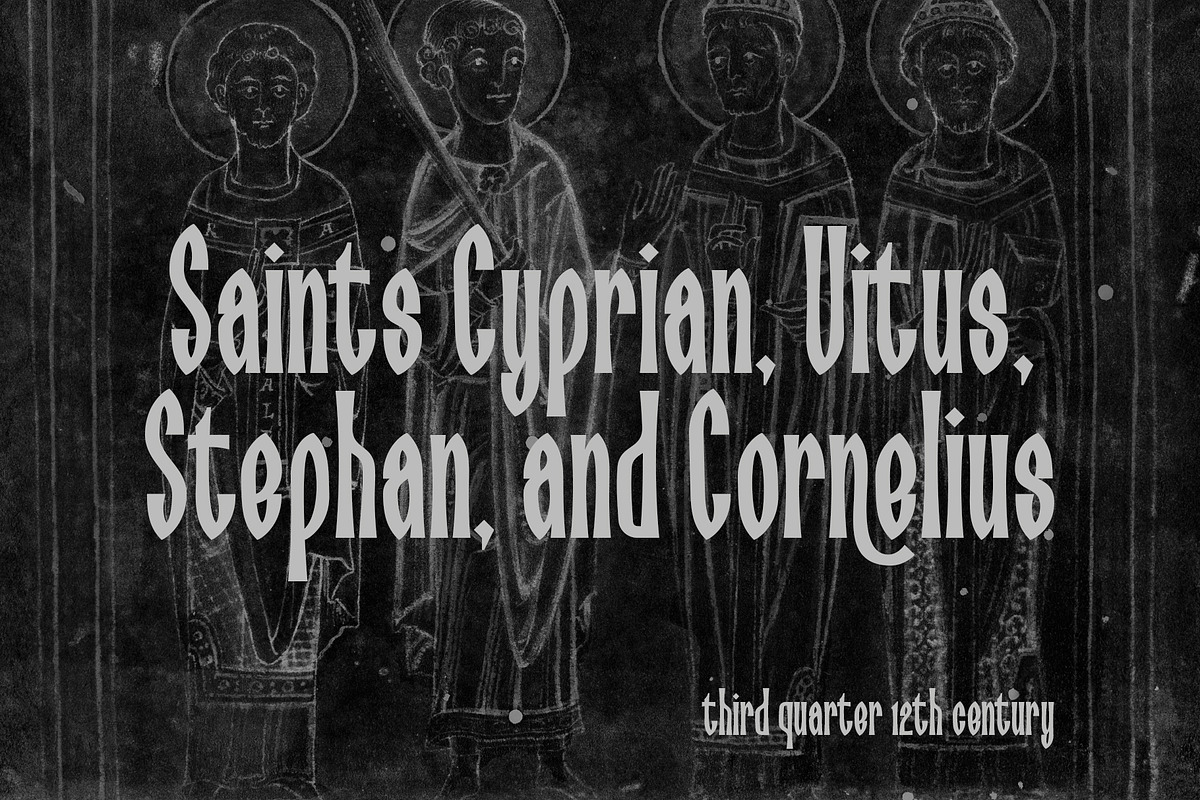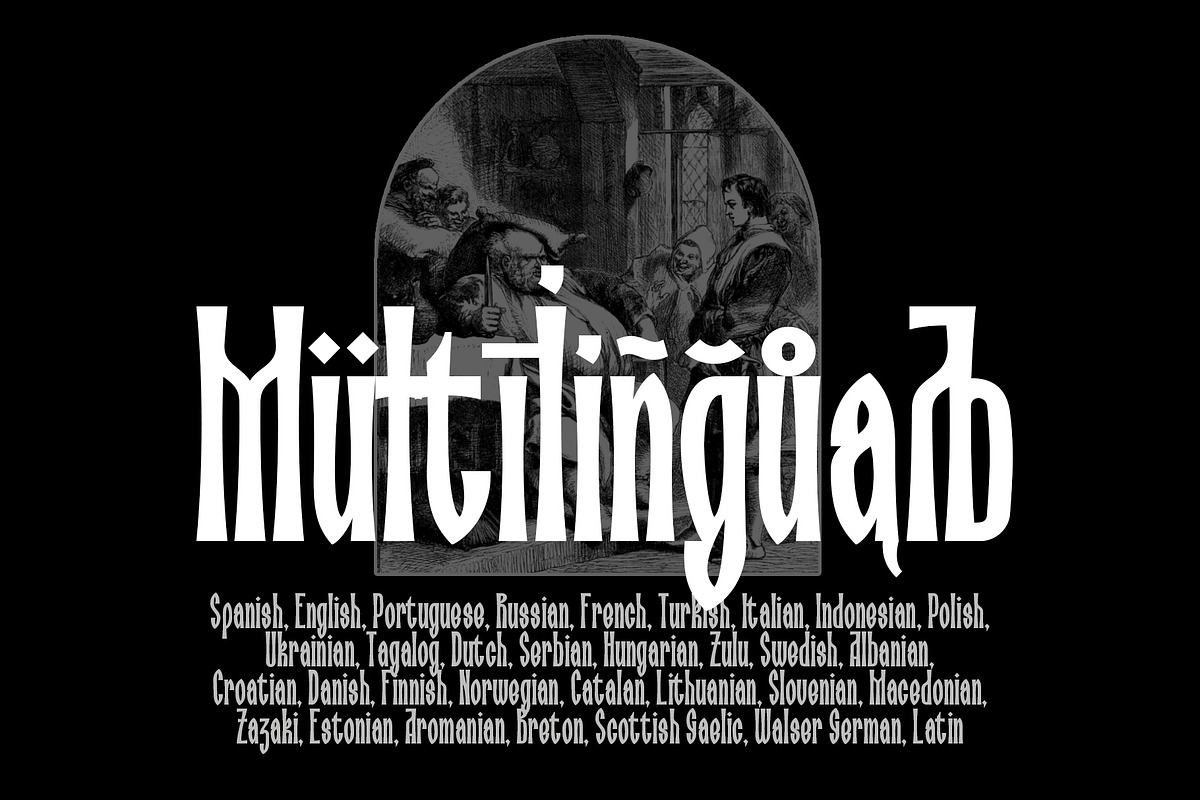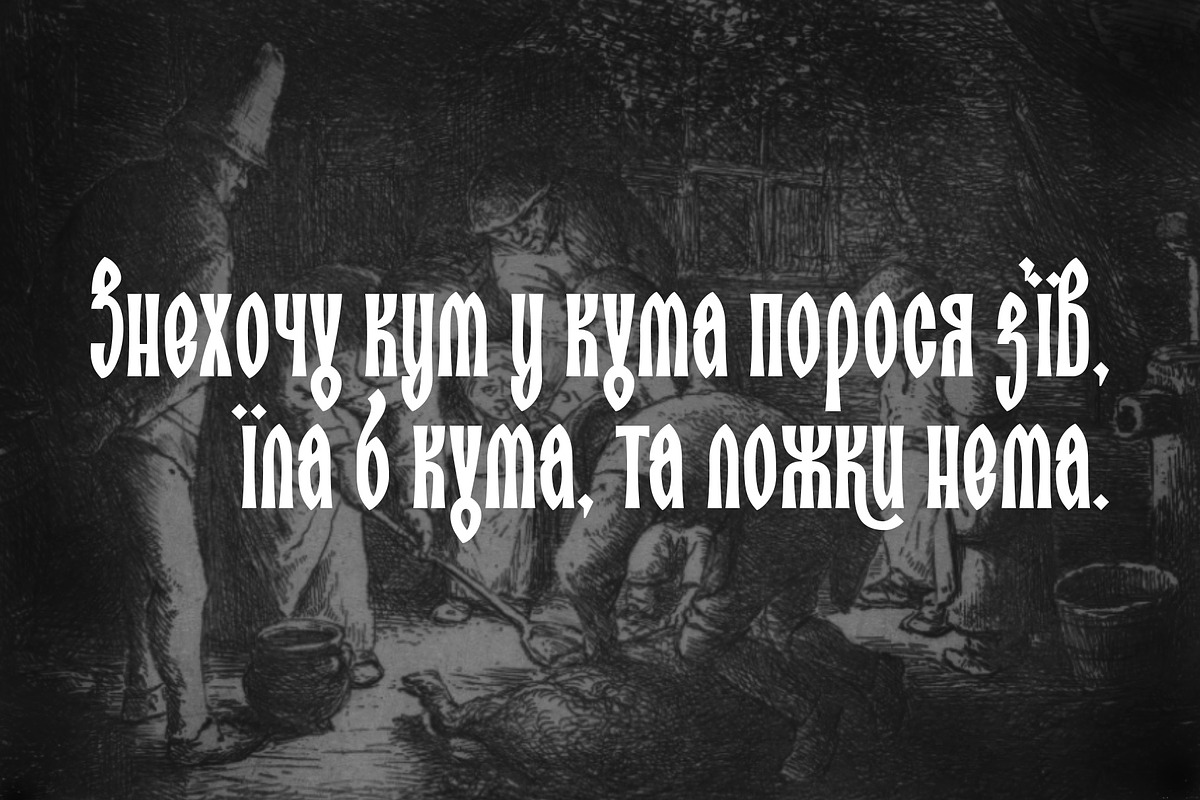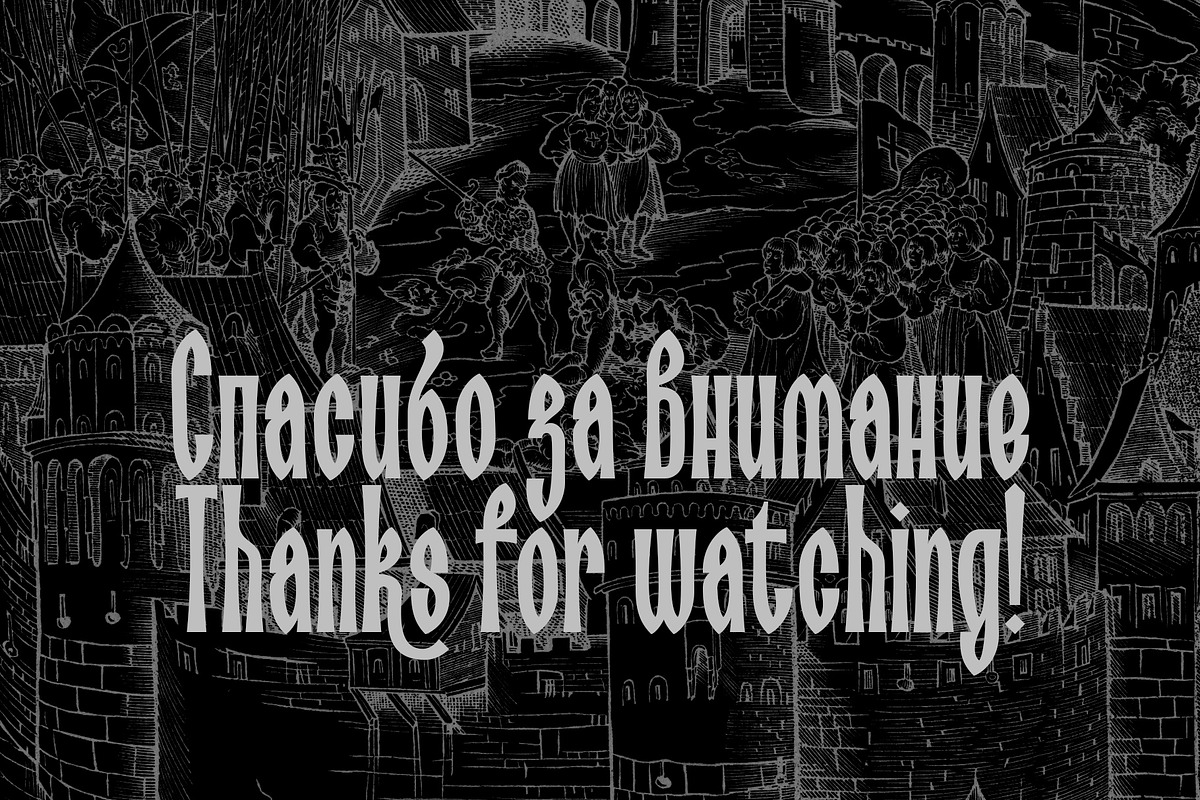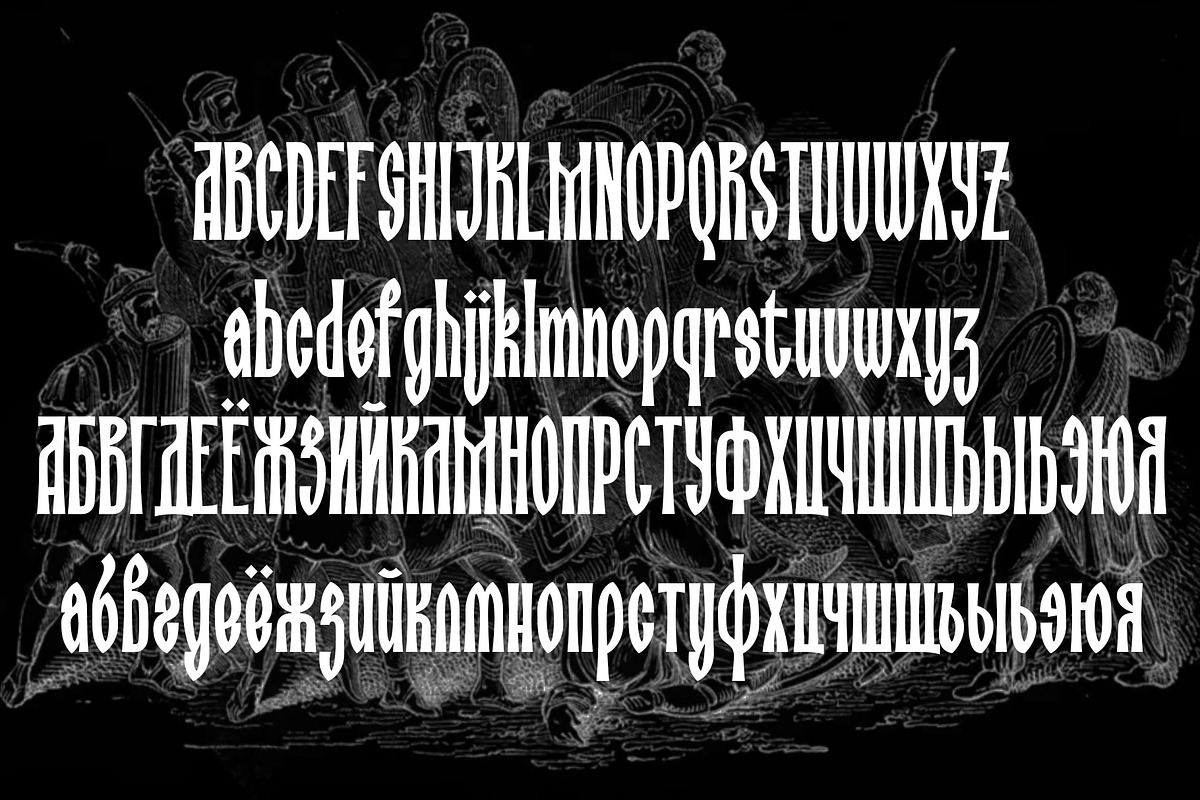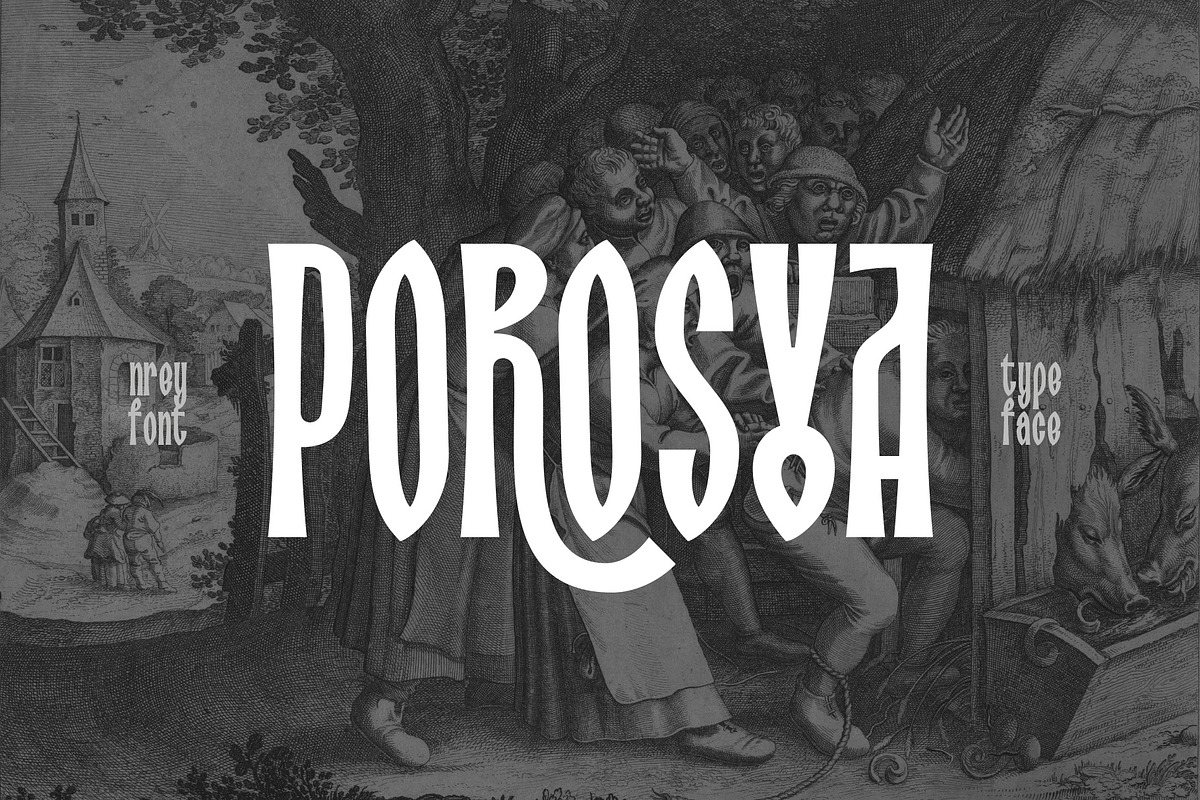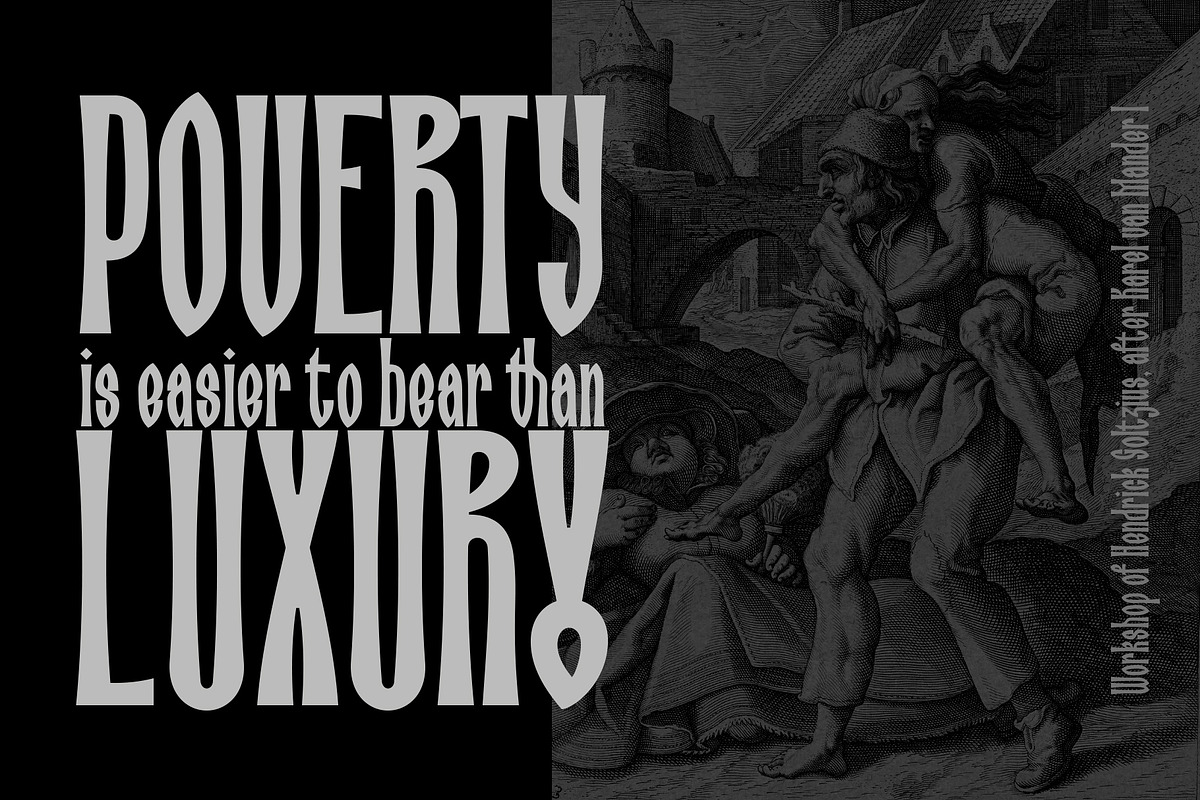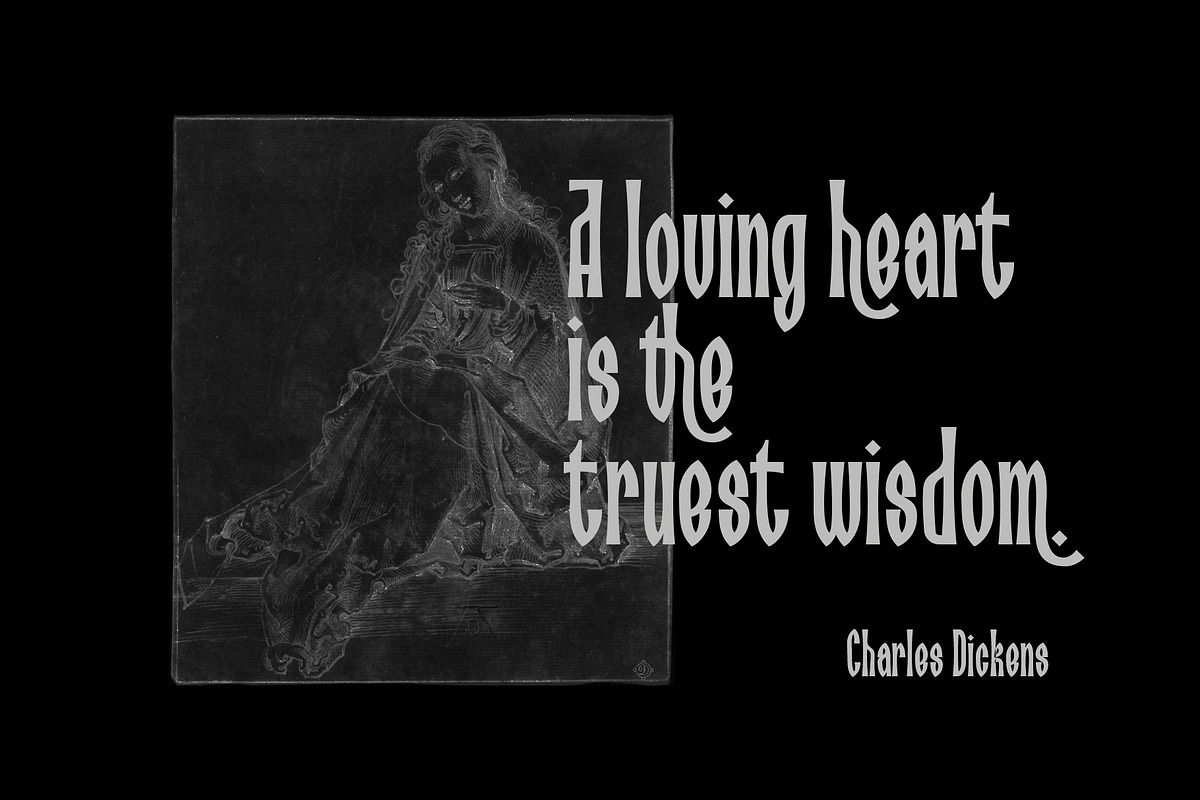
Porosya
Hi, friends! Introducing new typeface - Porosya
Porosya has multilingual support includes cyrillic. Many ligatures make your typography most variable. Porosya Typeface was inspired by ethnic slavonic style which combining classic typography with awesome features bring classic touch on this culture. It works well with normal size text and for large displays or short words. You may combine uppercase and smallcase in the text body, as alternates symbols. The Porosya typeface is suitable for : product packaging, labeling, logo, classic shop, ethnic shop, titles, etc